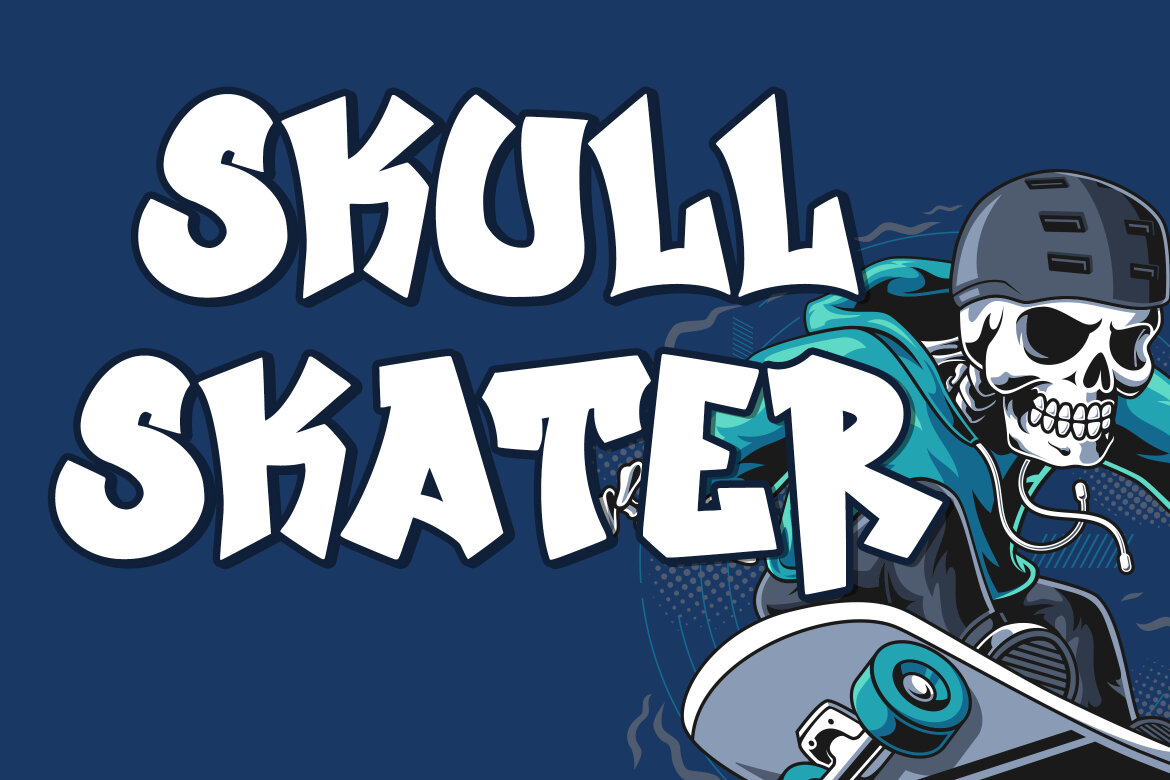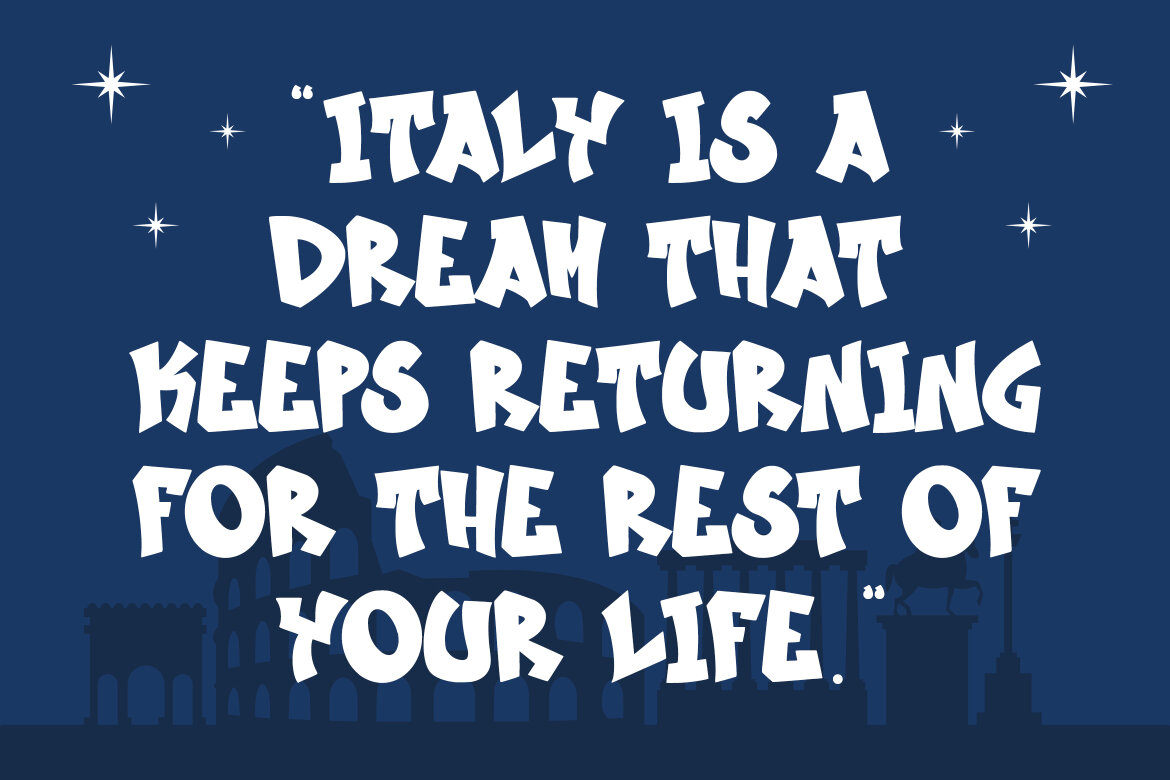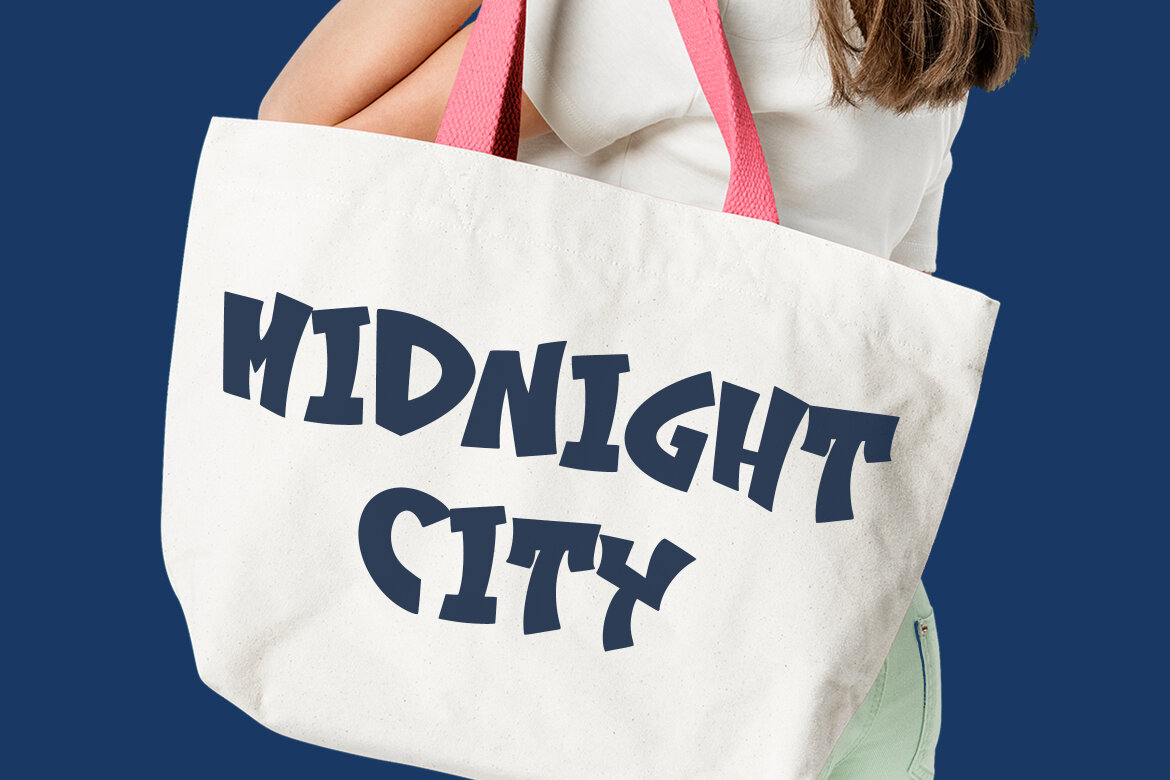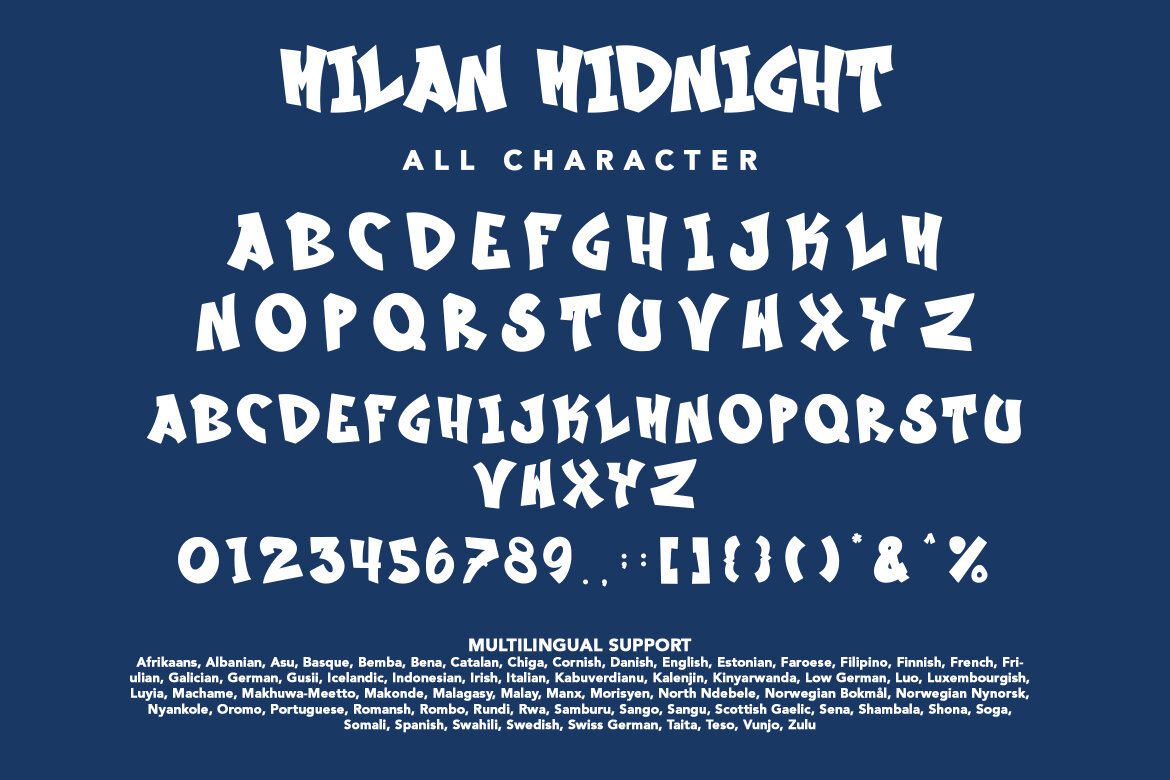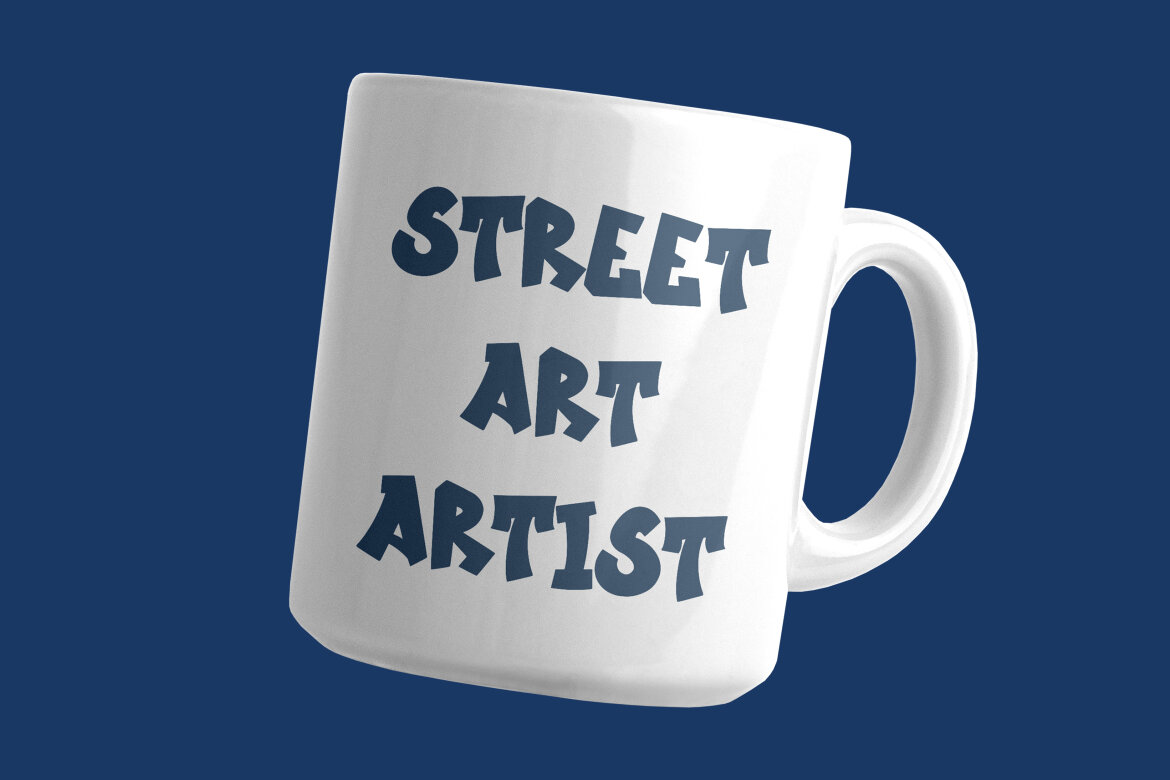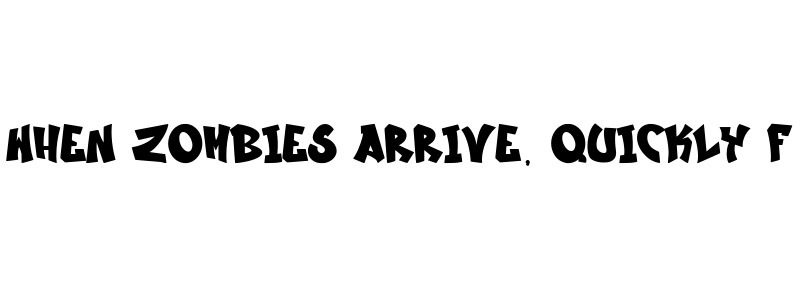
Milan Midnight
Milan Midnight is a graffiti font which is a typeface inspired by street graffiti art full of expression and artistic freedom. With its characteristic free style of writing, this font creates an energetic, rebellious and stylish impression. Its characteristics include thick lines, decorative elements, and a writing style that is often characteristic of graffiti art.
Each letter in a graffiti font can have additional elements such as shadows, paint sprays, or artistic ornaments that add a bold and creative feel. This font is often used to express a unique, different, and passionate personality. Suitable for use in design projects that want to convey a message that is bold, modern and full of youthful enthusiasm.
When used well, graffiti fonts can provide an energetic and inviting look, making them perfect for poster designs, wall art, or other design elements that want to stand out and attract attention.
• alternate
• number
• punctuation
• symbol